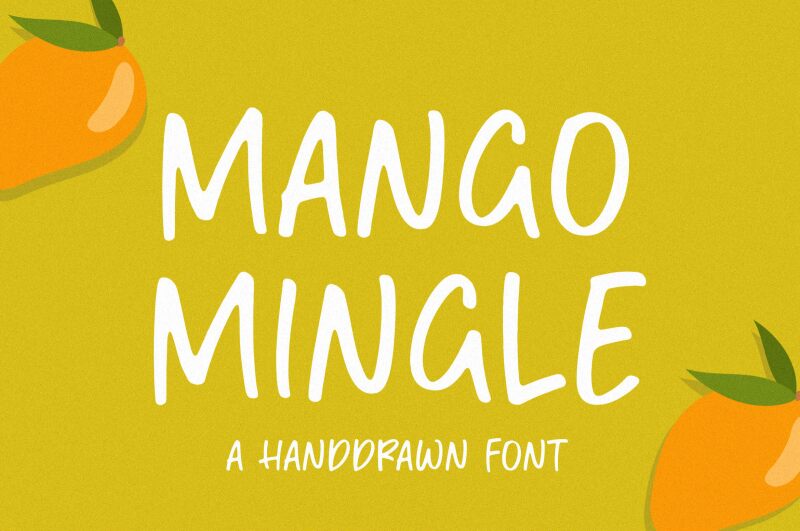
Mango Mingle
Mango Mingle font by Balpirick Studio is a quirky handwritten typeface with an informal and relaxed vibe. Its modern aesthetic makes it immediately suitable for contemporary themes, while its lively character gives any medium that uses it a friendly touch. A free handwritten font, Mango Mingle can be used to add visual interest without being extremely distracting from main elements of the project.
Let this beautiful set of characters inspire your branding works and appearances including logos, slogans, banners, and shop signs. Use it also on product packaging like pouches or milk cartons and on print elements such as invitations, cards, flyers, magazines covers or interiors.